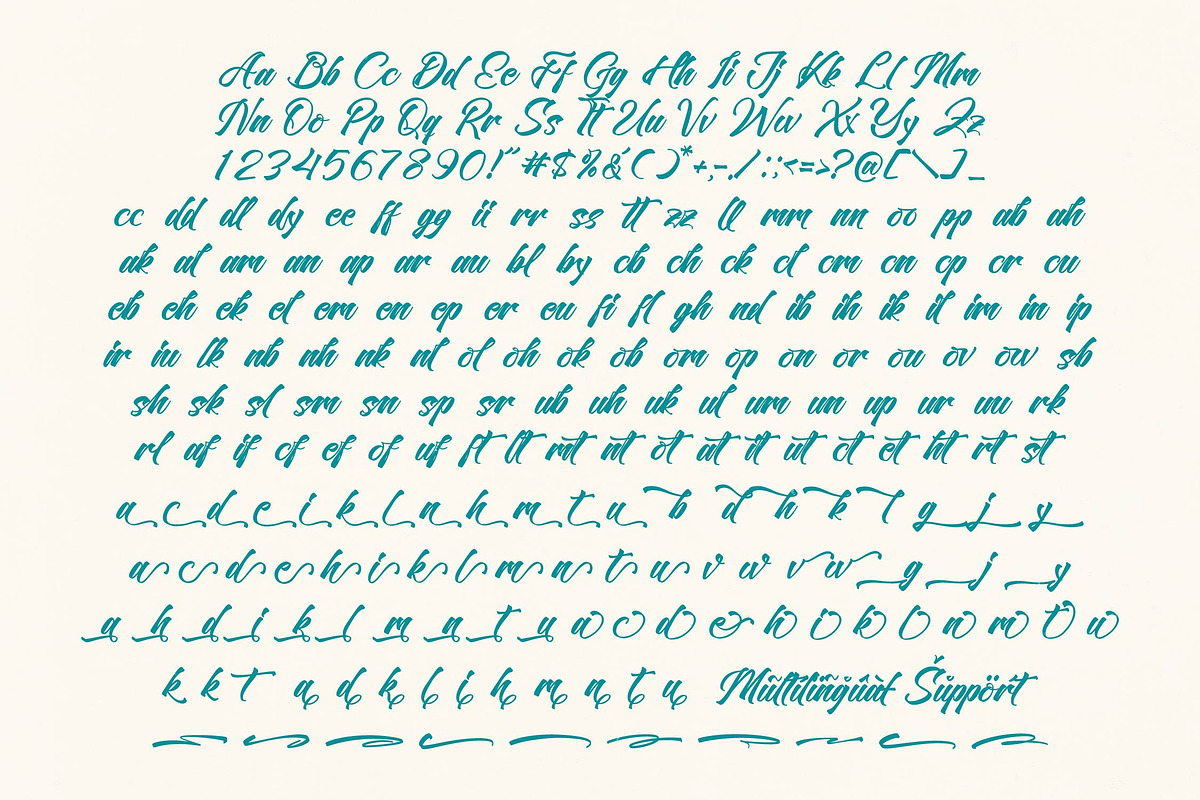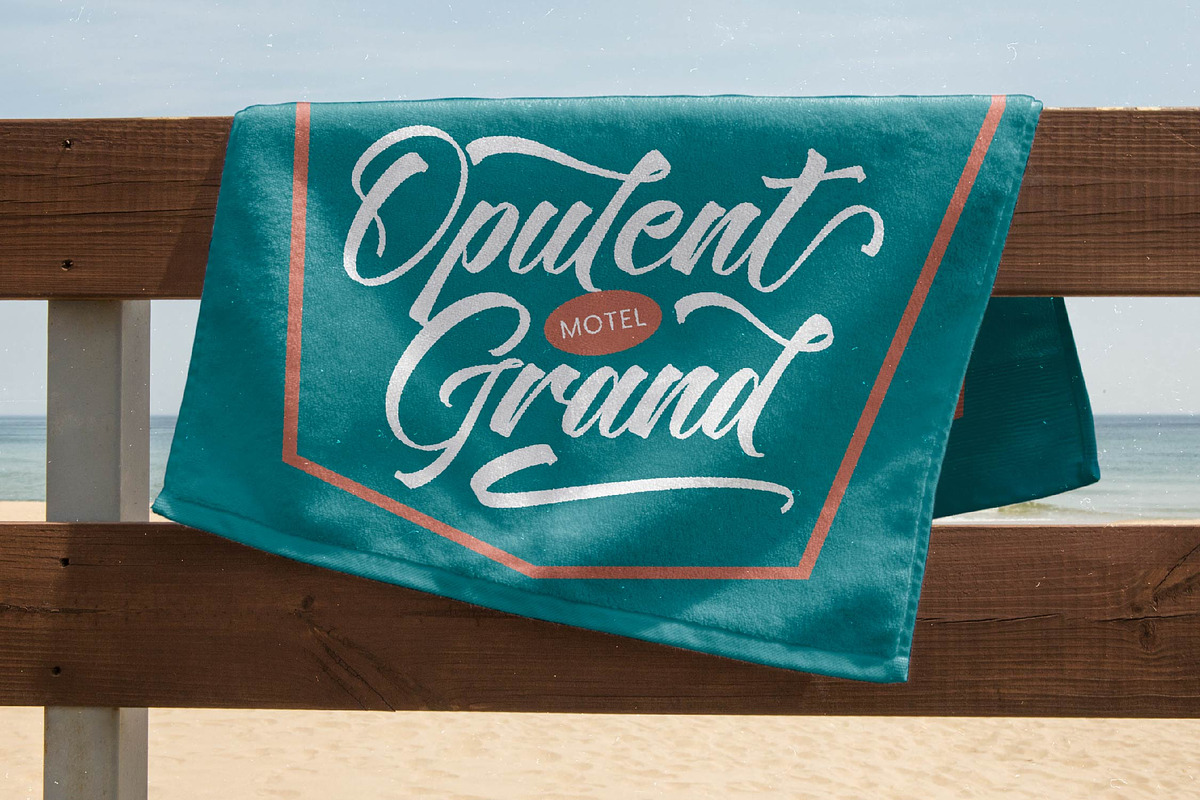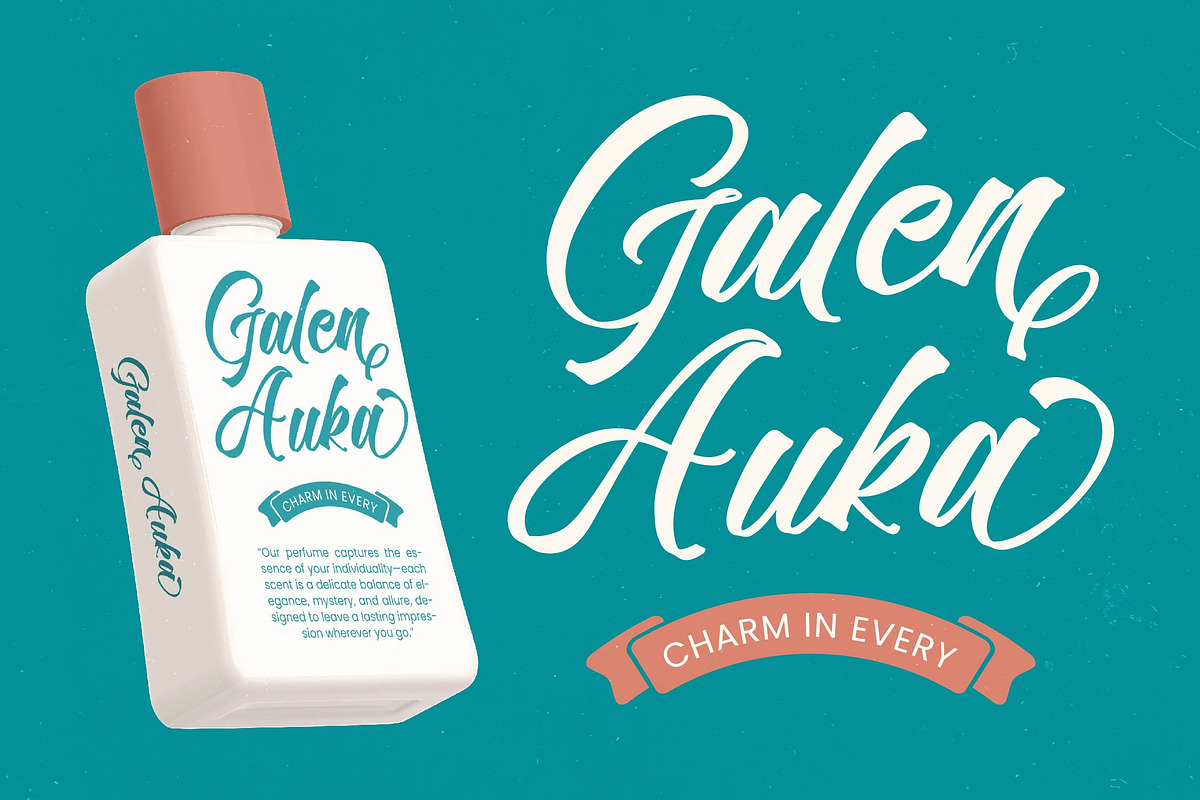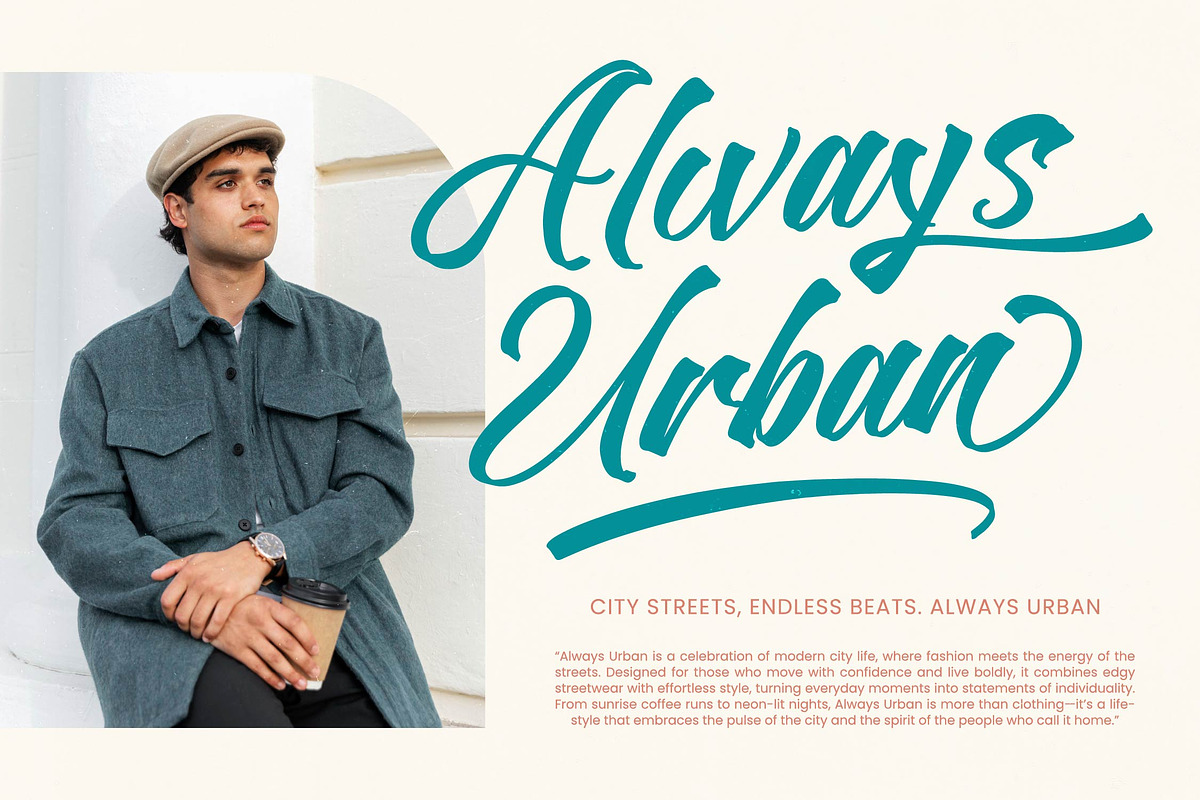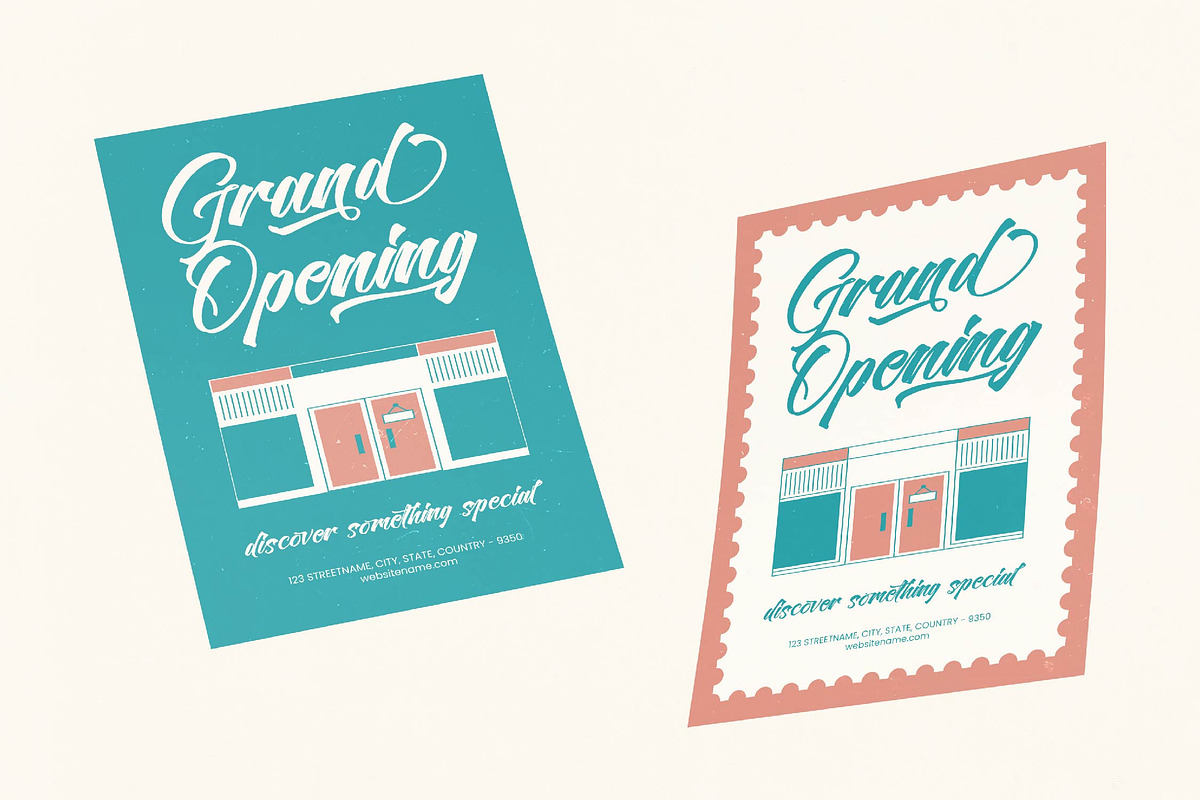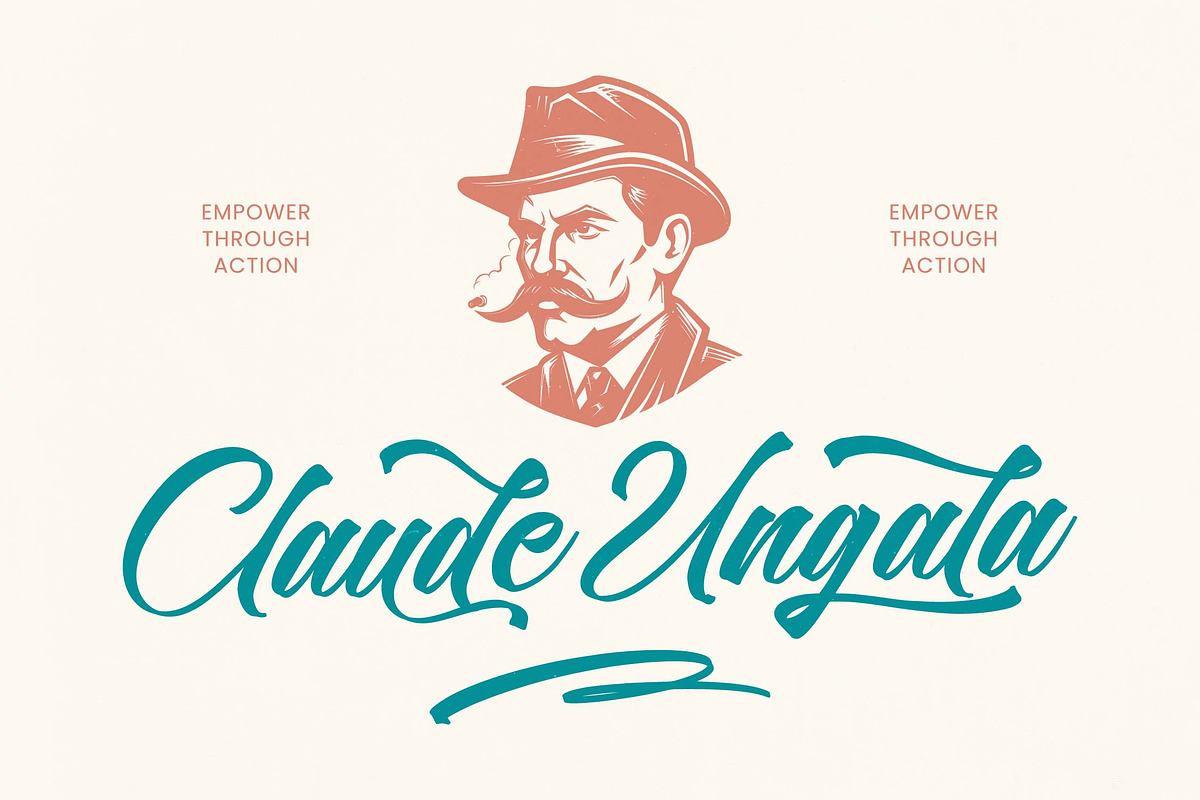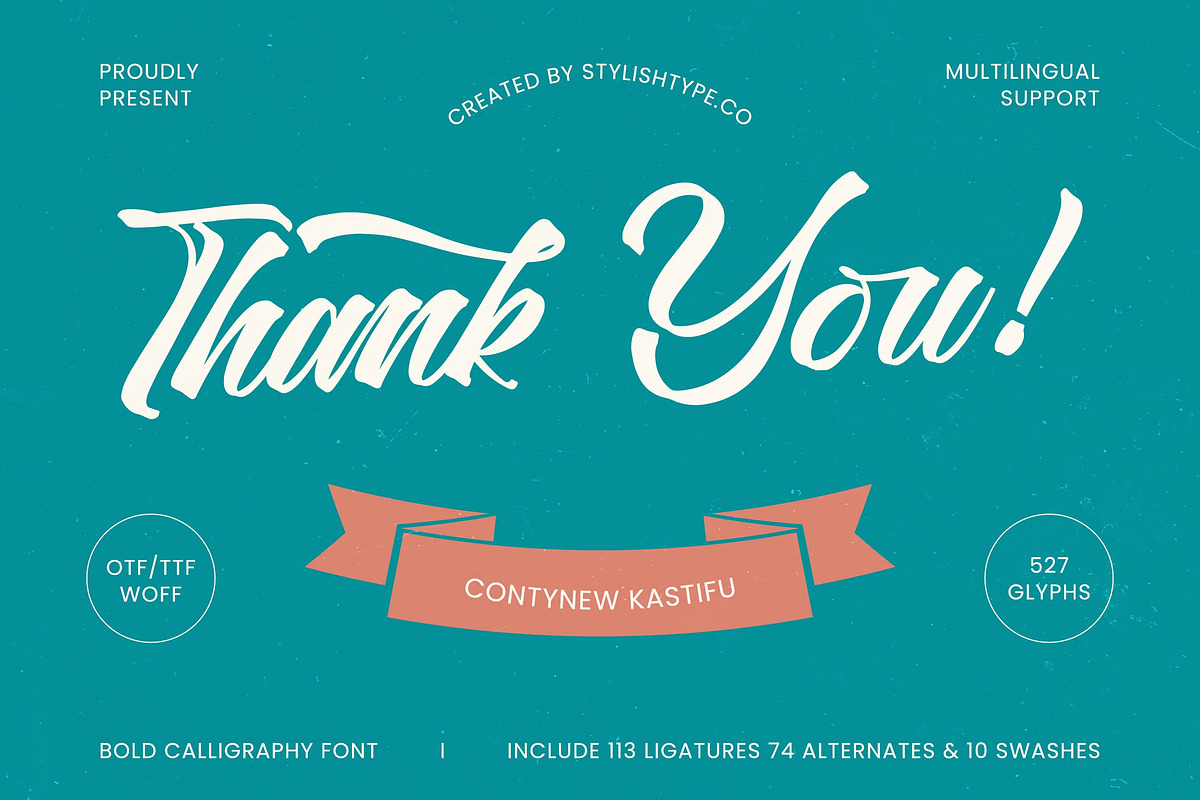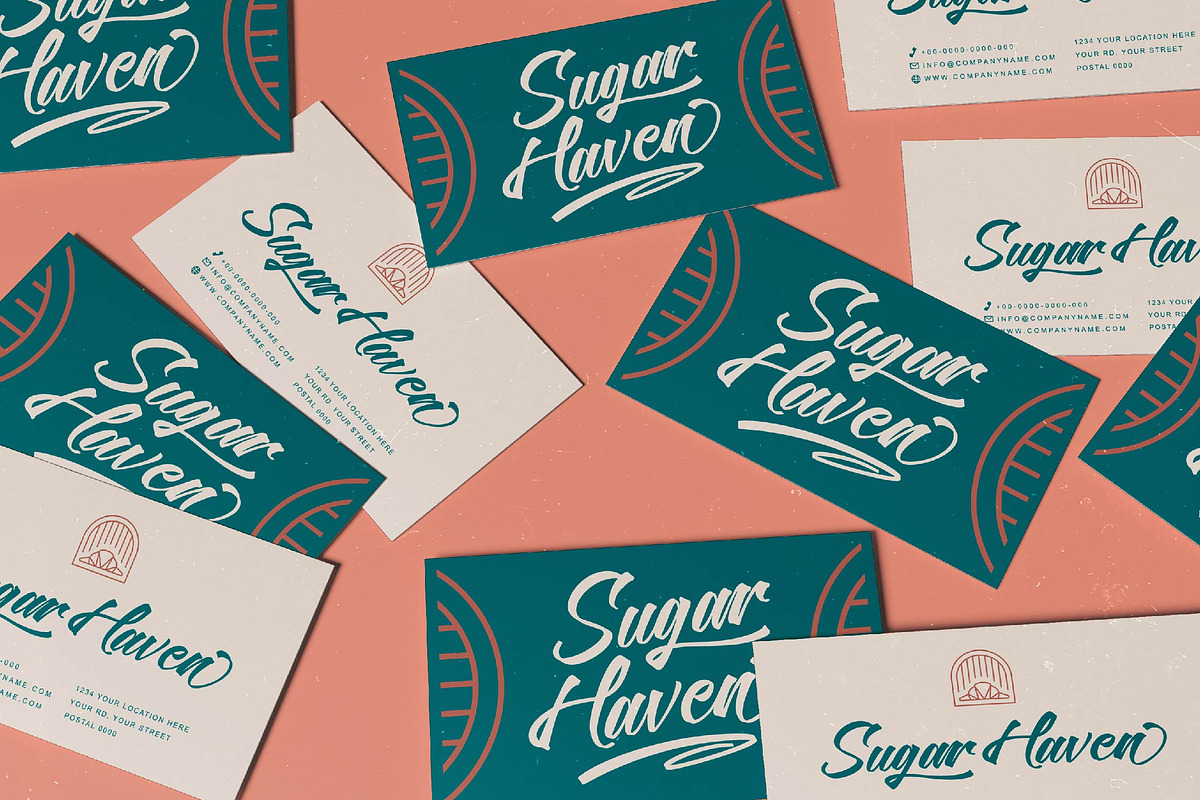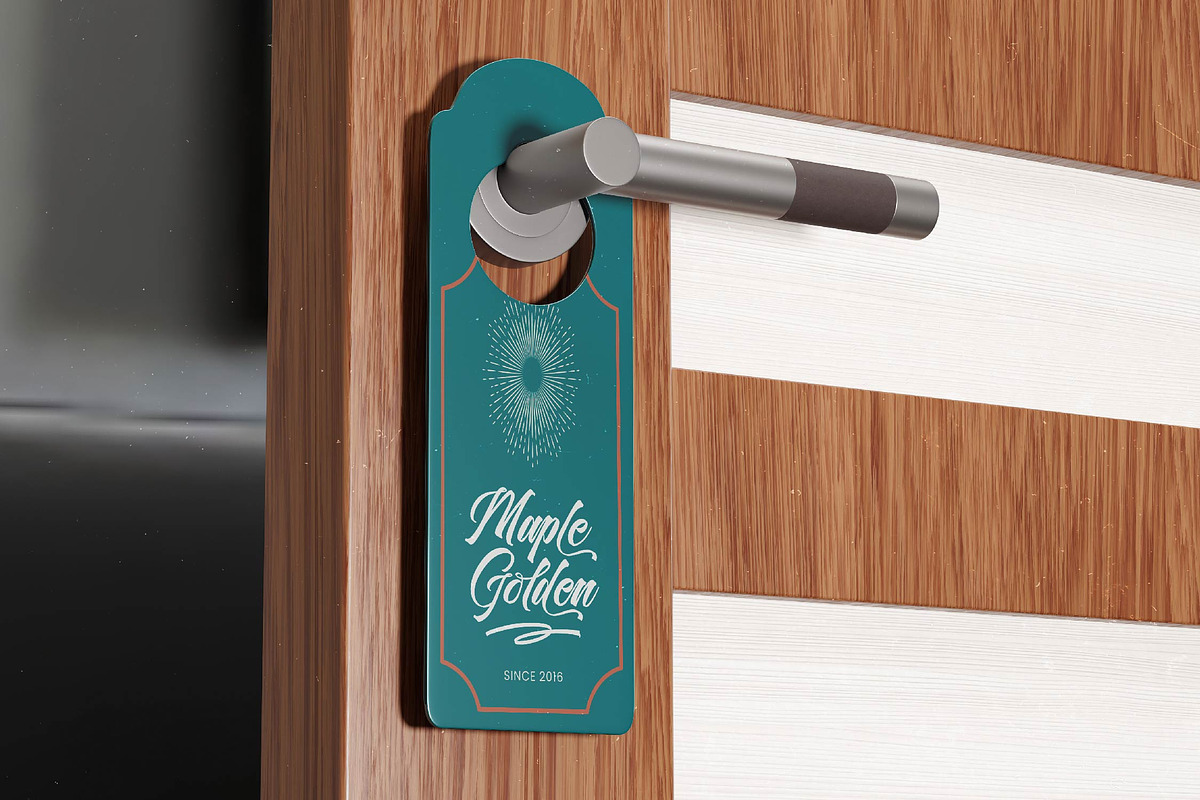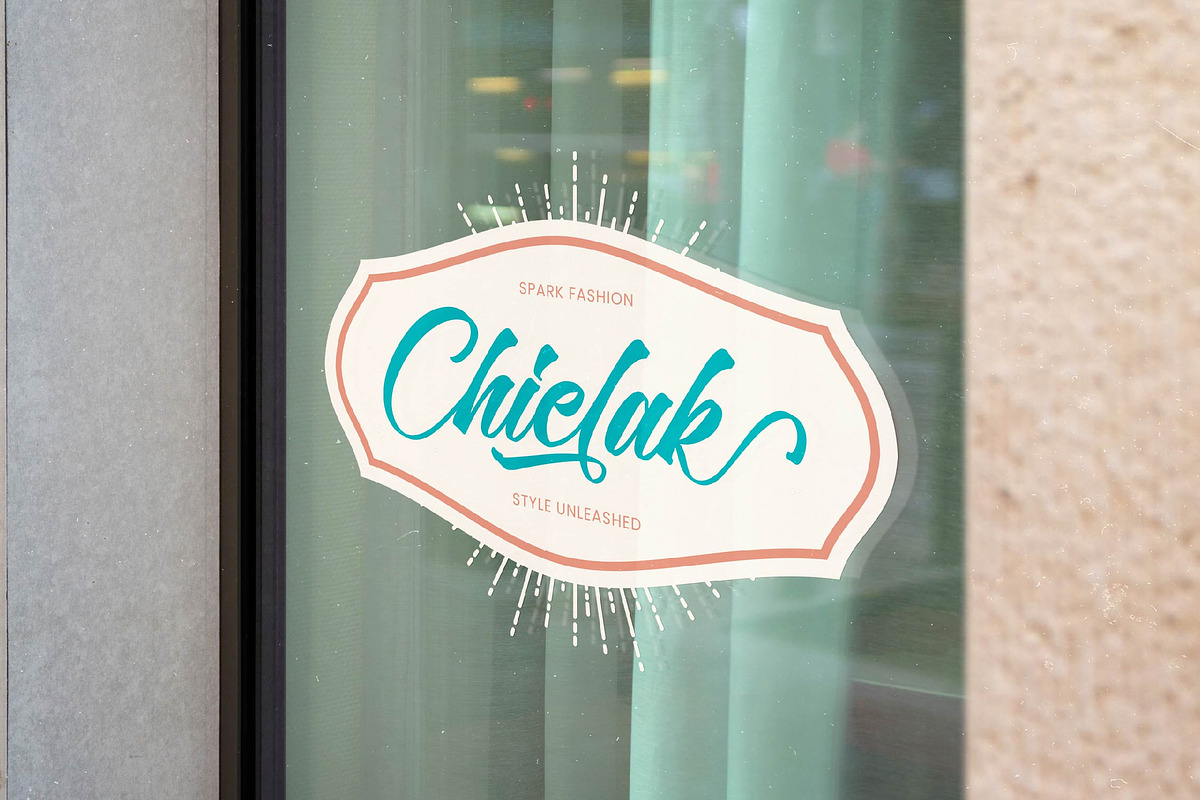
Contynew Kastifu Bold Calligraphy
Contynew Kastifu - Bold Calligraphy Font , Elevate your creative vision with a typeface that embodies sophisticated energy and artistic precision. The Contynew Kastifu - Bold Calligraphy Font is a premium bold calligraphy font that captures the fluid motion of hand-drawn script with a modern edge. Featuring high-contrast strokes and an expressive rhythm, it serves as the ultimate visual centerpiece for designers seeking to convey confidence and elegance in every character.
Unparalleled versatility meets meticulous craftsmanship in this expansive typeface, offering a rich library of 527 glyphs. By integrating 113 ligatures and 74 unique alternates, Contynew Kastifu - Bold Calligraphy Font provides endless possibilities for customized typography and a truly organic flow. This modern calligraphic masterpiece ensures that your headlines and logotypes remain distinctive, vibrant, and professional across all digital and print platforms.
Expand your reach effortlessly with a typeface designed for a global audience and diverse linguistic needs. With its extensive multilingual support, Contynew Kastifu - Bold Calligraphy Font adapts seamlessly across global markets, making it incredibly versatile for international projects. This global compatibility ensures that your brand message maintains its stylistic integrity and impact, regardless of the geographic region or language of your target demographic.
Transform ordinary designs into high-end branding statements with this versatile script font. The Contynew Kastifu - Bold Calligraphy Font is perfect for luxury branding, premium packaging, editorial design, and sophisticated wedding stationery. Whether you are crafting a bespoke logo or high-impact social media graphics, this font delivers a refined aesthetic that guarantees your project stands out in a competitive marketplace.